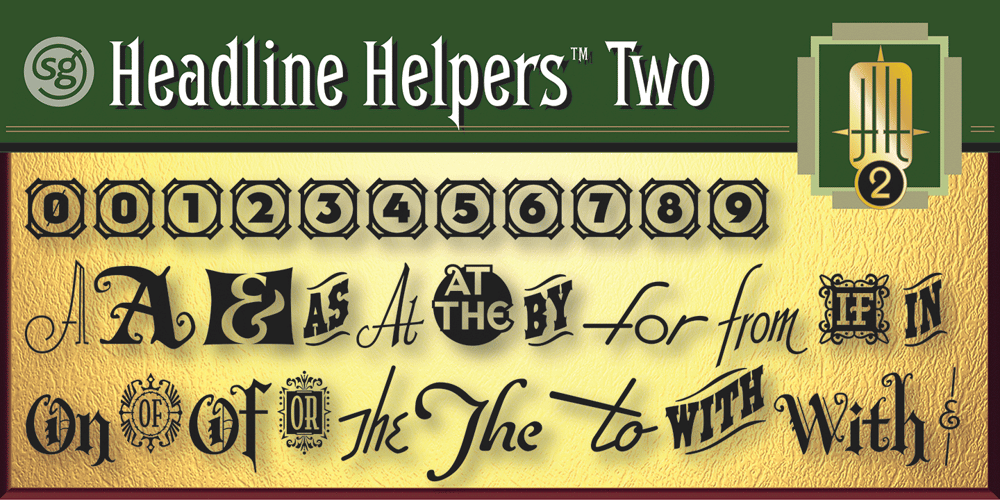
Headline Helpers Two SG Font Family was designed by Jim Spiece and published by Spiece Graphics. Headline Helpers Two SG contains 1 styles and family package options. Wouldn’t it be nice to have an assortment of little hand-lettered words? Words like “The” or “A”; “With” or “At”; “To” or “From”? Headline Helpers Two are word accents that can go just about anywhere. Set off the title of your next design project with one of these little gems. Or use a Helper with your new product introduction headline. Convenient instructions and character map come as standard equipment with this highly desirable addition to your type library. Headline Helpers Two is available in the OpenType Std format. Advanced features currently work in Adobe Creative Suite InDesign, Creative Suite Illustrator, and Quark XPress 7. A Windows TrueType version of this font has also been provided if you prefer normal keyboard access.